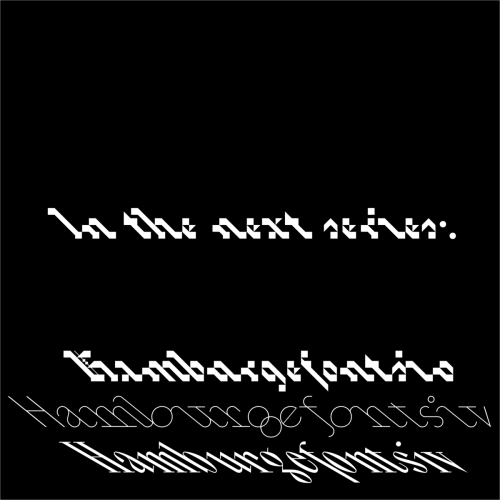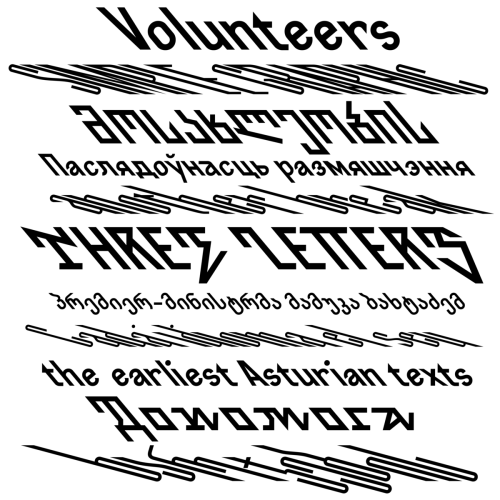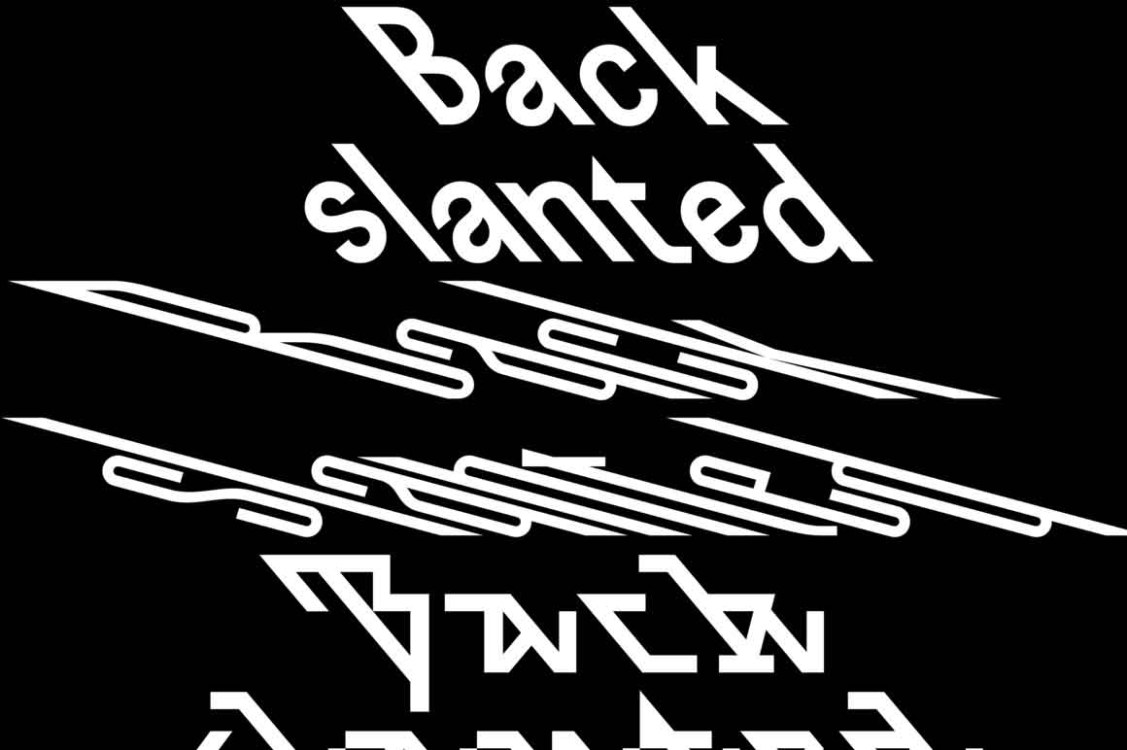
Backslanted Font
Backslanted is not a font family, but rather a font series including backslanted typefaces of various styles, weights and angles. The series explores backslanted forms defined by their drawing tools (a ruler and a driver) with a minimum amount of optical compensations.
The first episode of the Backslanted series contains two sans serif typefaces (Regular and Super backslanted) and a Script. All three typefaces are equipped with punctuation, math and currency symbols and a number of stylistic alternatives.
The series is to be supplemented by other styles like Serifs, Blackletters and probably other kinds of typefaces drawn with the same tools.
Backslanted Font is a Decorative Fonts font that brings a professional and versatile look to your projects. Backslanted is not a font family, but rather a font series including backslanted typefaces of various styles, weights and angles.